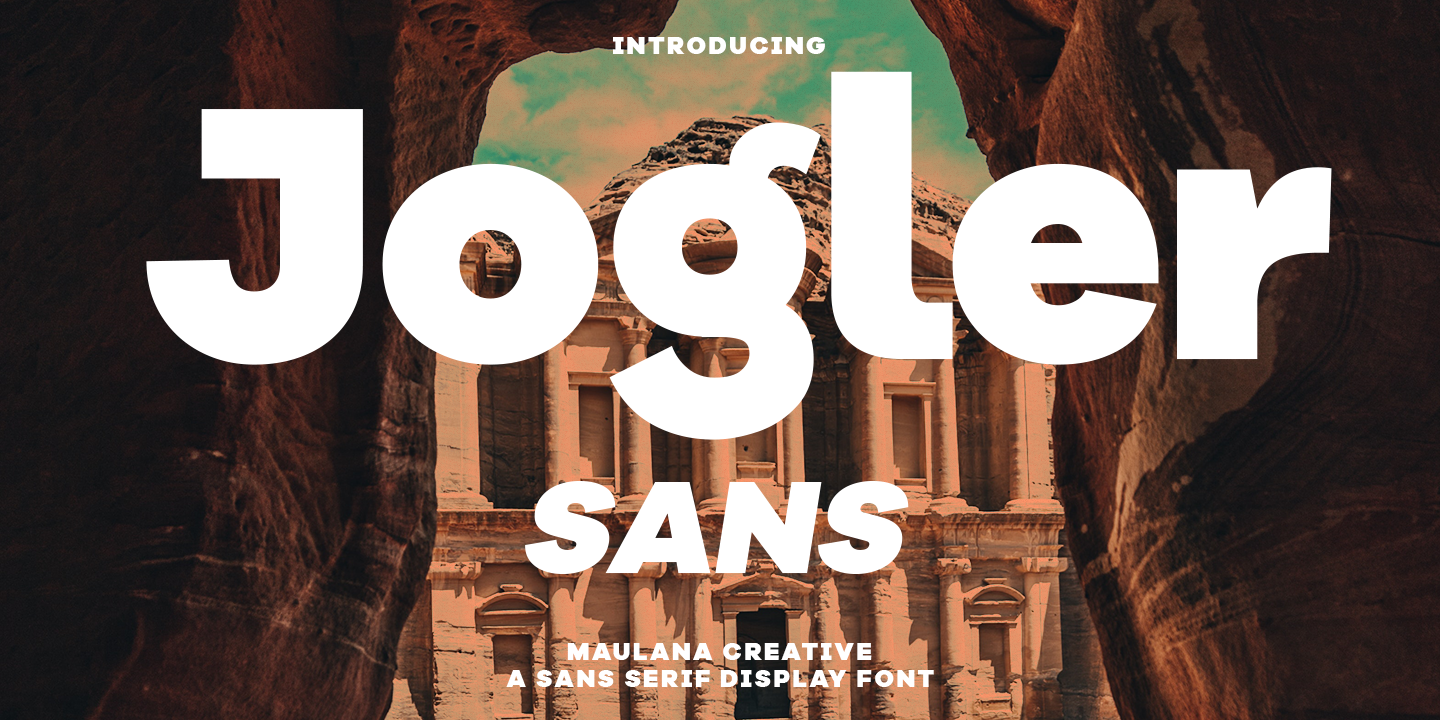
Jogler Font is perfect for fitness brand identities, sports team logos, athletic apparel designs, gym signage, running event promotions, competitive sports materials, health club communications, outdoor adventure campaigns, energy drink packaging, and dynamic lifestyle brands. This energetic display typeface brings athletic power and competitive spirit to high-performance design applications.
What makes Jogler Font so exciting is its remarkable ability to capture the kinetic energy and competitive drive of elite athletic performance through letterforms that pulse with physical strength and dynamic movement. The font features boldly constructed characters with muscular proportions and aggressive angles that create an immediate sense of power, speed, and athletic excellence. Its distinctive characteristics include strong geometric construction, dynamic stroke weights, and energetic character spacing that mirror the intensity and determination found in championship sports and peak physical performance. The font's association with athletic achievement and proven appeal among fitness-conscious audiences make Jogler Font perfect for brands seeking to communicate strength, endurance, and the relentless pursuit of physical excellence.
The Jogler Font family includes multiple power variations: Light, Regular, Medium, Bold, and Heavy versions with athletic character sets. The comprehensive character collection encompasses complete Latin alphabet support with sports-inspired alternates, powerful numerals, competitive punctuation marks, athletic symbols, and dynamic decorative elements that enhance performance messaging. Professional features include contextual alternates that maximize energetic impact, aggressive spacing that creates kinetic rhythm, muscular character construction that ensures maximum visual strength, and athletic details that reflect the precision and power required for championship-level performance across all competitive disciplines.
Whether you're creating sports brand materials, fitness communications, or athletic event promotions that celebrate physical excellence and competitive achievement, Jogler Font Free Download provides the powerfully energetic typography that motivates action and inspires peak performance. Its exceptional dynamic character makes it perfect for fitness brands, sports organizations, and athletic companies where strength and competitive spirit are essential for authentic connection with performance-oriented audiences, while its aggressive construction ensures memorable impact that resonates with athletes and fitness enthusiasts. The font's combination of athletic energy and professional reliability makes it invaluable for sports marketers, fitness brands, and any project seeking to communicate the power, determination, and unstoppable competitive drive that defines championship athletics and peak physical performance in today's demanding fitness and sports marketplace.